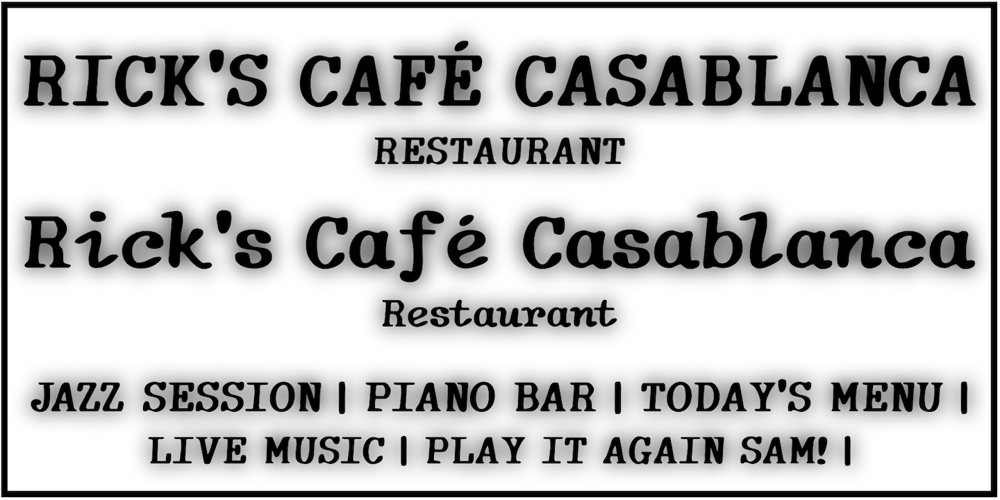
Rick’s Cafe Font Family was designed by Nor Eddine Bahha and published by NorFonts. Rick’s Cafe contains 4 styles and family package options. Rick’s Cafe font is my emulation of those typefaces used in newspapers, it’s being inspired from my “NorB TypeWriter” typeface. You may want to use this font with any word processing program for text and display use, print and web projects, apps and ePub, comic books, graphic identities, branding, editorial, advertising, restaurant menus, newspapers, scrapbooking, cards and invitations and any casual lettering purpose… or even just for fun!Rick’s Cafe font comes in 4 styles, Normal and Bold each with Italic and Condensed versions.